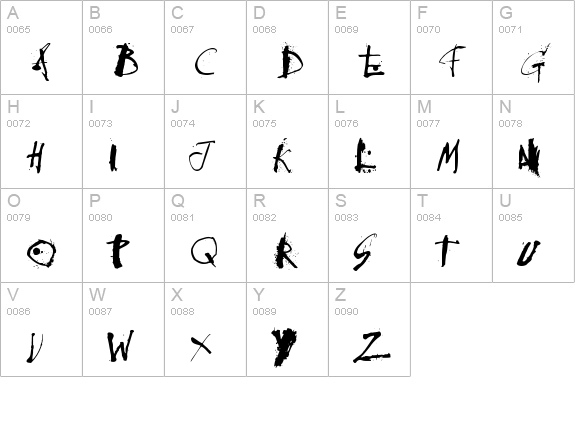
CollateralDamage font is a bold and impactful typeface that exudes strength and modernity. Its sharp edges and unique design make it perfect for creating eye-catching headlines, posters, and branding materials. The font's contemporary style adds a touch of edginess to any project, making it stand out from the crowd. Best of all, CollateralDamage font is completely free to download at FontsMarket.com. This means you can easily access and use this striking font for all your creative endeavors without any cost. Whether you're designing a website, crafting a logo, or working on a print project, CollateralDamage font is a versatile and dynamic choice that will elevate your designs to the next level. Download it now and unleash your creativity with this free and impactful font!